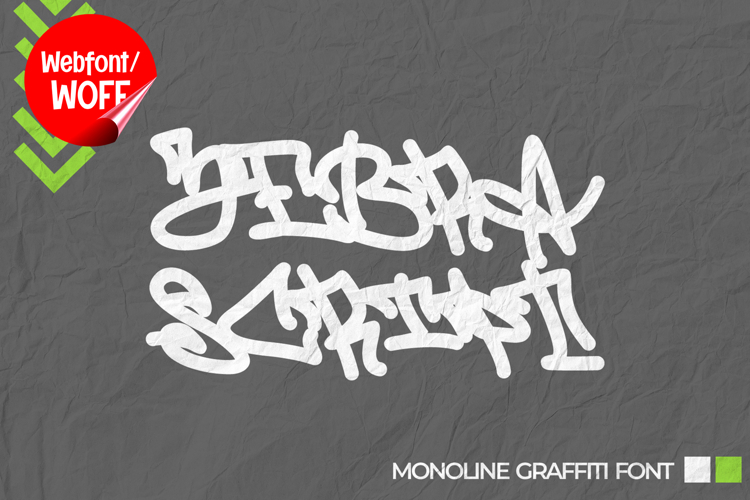
Zebra Script | Monoline Graffiti Webfont for Modern Websites
Zebra Script is a monoline graffiti webfont designed to bring a smooth, clean, and expressive handwritten style into modern website design. With its consistent single-line strokes and flowing structure, this font captures the essence of graffiti tagging while maintaining a refined and balanced appearance for digital use. It is a great choice for projects that require an urban touch with a clean and stylish finish.
Zebra Script features a complete set of uppercase characters built with a monoline structure. The even stroke weight creates a smooth and cohesive look, while the handwritten flow adds a natural and dynamic feel. These letterforms are ideal for headlines, logo-style text, banners, and highlighted sections that need to stand out with a unique and modern graffiti style.
The font also includes numbers and punctuation, making it versatile for various website elements. It can be used for short messages, promotional text, navigation accents, and interface highlights. Each character is designed to maintain the same monoline consistency, ensuring a unified and polished appearance throughout the design.
With multilingual support, Zebra Script includes a wide range of accented characters, making it suitable for international use. This allows content to be displayed clearly across different languages while preserving the smooth graffiti aesthetic. It is especially useful for global brands, creative platforms, and digital projects targeting diverse audiences.
The monoline graffiti style of Zebra Script makes it ideal for urban-themed websites, streetwear brands, music platforms, creative portfolios, and lifestyle content. Its clean stroke design offers a modern twist on traditional graffiti, making it more adaptable for contemporary web design. The flowing lines create a sense of movement and energy without overwhelming the layout.
Despite its expressive style, Zebra Script is designed with readability in mind. The balanced spacing and consistent stroke weight ensure that text remains clear, especially in short phrases and display use. This makes it effective for both visual highlights and supporting design elements.
Zebra Script is a webfont that blends graffiti inspiration with clean monoline precision. Its smooth curves, consistent strokes, and modern style create a distinctive look that enhances website design. For projects that need a stylish graffiti touch with clarity and versatility, Zebra Script offers a refined and impactful typographic solution.